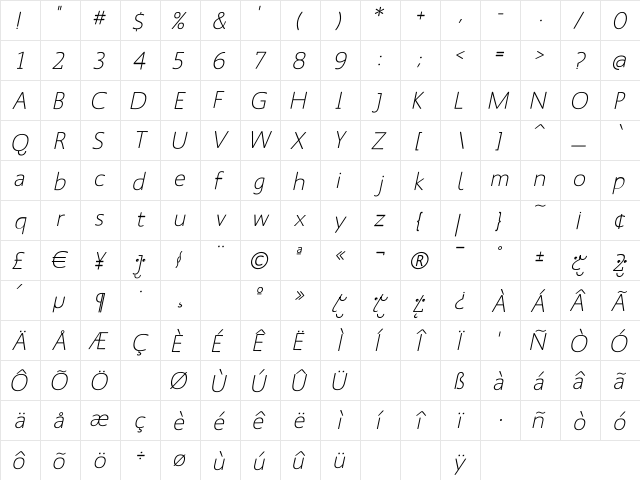
MankSans Italic
Design Context for MankSans Typeface
MankSans is a composed and adaptable typeface that performs quietly and consistently across a wide range of design contexts. The slanted form adds forward momentum and visual energy.